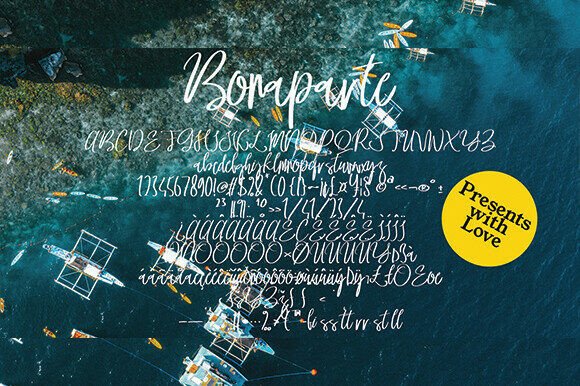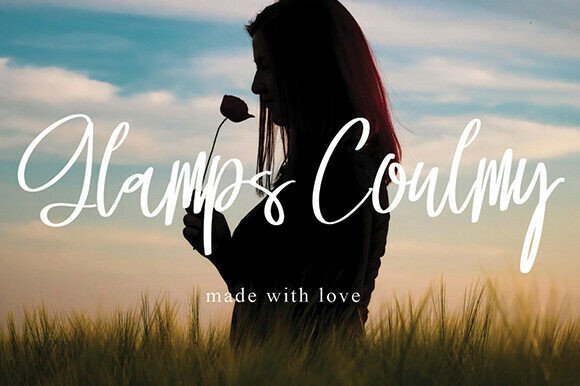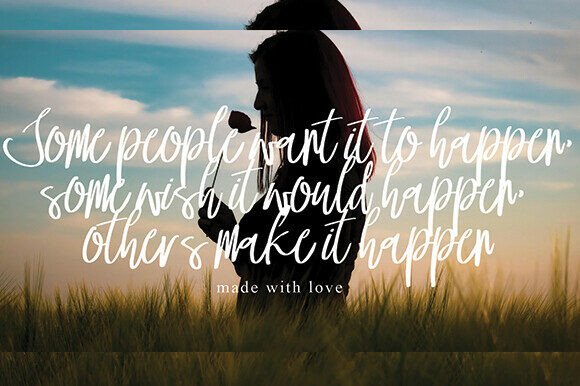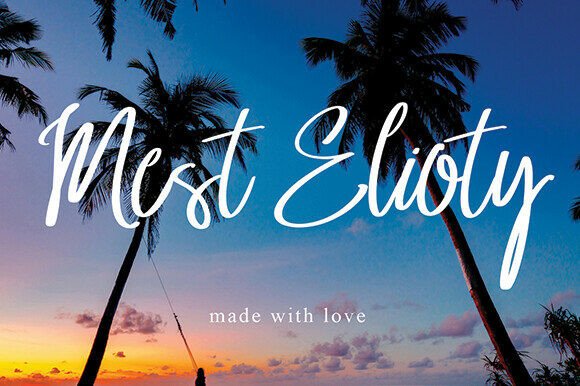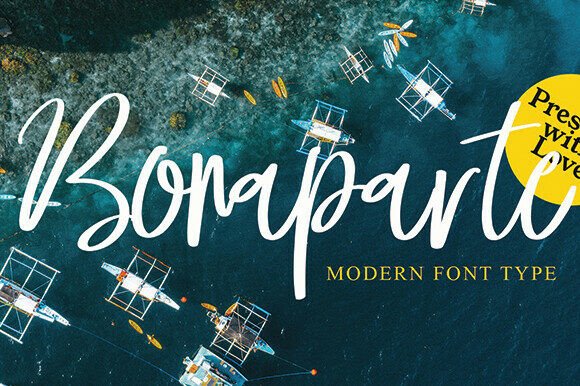
Introducing Bonaparte Font: Elevate Your Designs with Elegance and Sophistication
In the world of typography, few fonts manage to strike a balance between modernity and elegance. Bonaparte Font is one such exceptional typeface that brings a smooth, contemporary script style to the table, making it an ideal choice for designers and crafters looking to add a touch of refinement to their projects. With its clean, flowing lines and versatile handwritten elegance, Bonaparte is set to become your go-to font for a variety of design needs.
The Essence of Bonaparte Font
Bonaparte Font is characterized by its fluid strokes and graceful curves, which lend it a unique charm. This font is not just about aesthetics; it’s also highly functional. Its clear and readable design ensures that it works well in various contexts, from digital platforms to print materials. Whether you’re working on a branding project, crafting wedding invitations, or creating stylish social media graphics, Bonaparte brings a level of sophistication that’s hard to match.
Key Features of Bonaparte Font
- Smooth and Contemporary Design: The font boasts a modern look that fits well with current design trends, making your projects look fresh and up-to-date.
- Clean and Flowing Lines: The clean lines ensure readability, while the flowing script style adds an artistic touch to any text.
- Versatile and Elegant: Its handwritten elegance makes it versatile for various design applications, from formal to casual.
- Easy to Read: Despite its elegant and cursive nature, Bonaparte maintains a high level of legibility, making it suitable for both headings and body text.
Bonaparte’s adaptability makes it an excellent choice for a wide range of design projects. Here are some of the areas where it truly shines:
- Branding: Use Bonaparte to create a memorable logo or to develop a cohesive brand identity that exudes elegance and professionalism.
- Wedding Invitations: Add a touch of romance and sophistication to your wedding invitations and stationery with this beautiful script font.
- Social Media Graphics: Elevate your social media presence with stylish graphics that incorporate the smooth, flowing lines of Bonaparte.
- Packaging: For brands that want to stand out on the shelves, Bonaparte can add a level of luxury and appeal to product packaging.
Tips for Using Bonaparte Font Effectively
To get the most out of Bonaparte Font, consider the following tips:
- Pair with Contrasting Fonts: Combine Bonaparte with a more straightforward, sans-serif font for body text to create visual interest and hierarchy.
- Experiment with Sizes: Play around with different sizes to emphasize certain words or phrases, especially in headings and subheadings.
- Use it Sparingly: While Bonaparte is elegant, using it sparingly can make it more impactful. Consider using it for key messages or highlights.
| Author | Jumhot Studio |
Bonaparte Font is a beautiful addition to any designer’s toolkit. Its smooth, contemporary script style, combined with its elegance and versatility, makes it perfect for a variety of projects. Whether you’re a professional designer or a DIY crafter, Bonaparte can help elevate your designs, adding a touch of charm and refinement that’s sure to impress. So, why settle for ordinary when you can make your designs extraordinary with Bonaparte Font?
Embrace the elegance of Bonaparte and discover a world of design possibilities that are as limitless as your creativity.